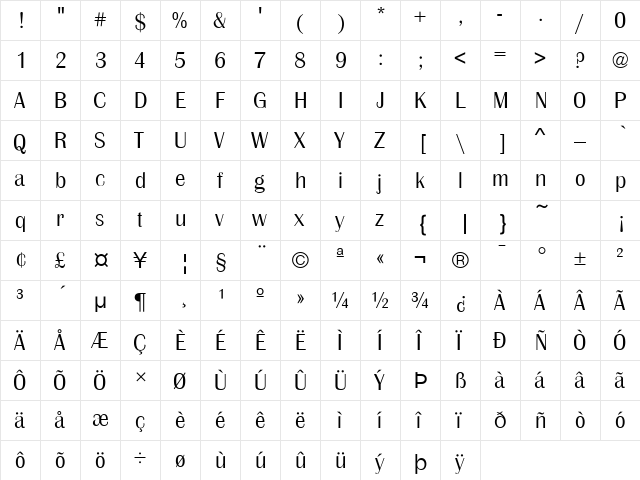
Britannic Medium Regular
Design Context for Britannic Medium Typeface
Britannic Medium is a composed and adaptable typeface that performs quietly and consistently across a wide range of design contexts.